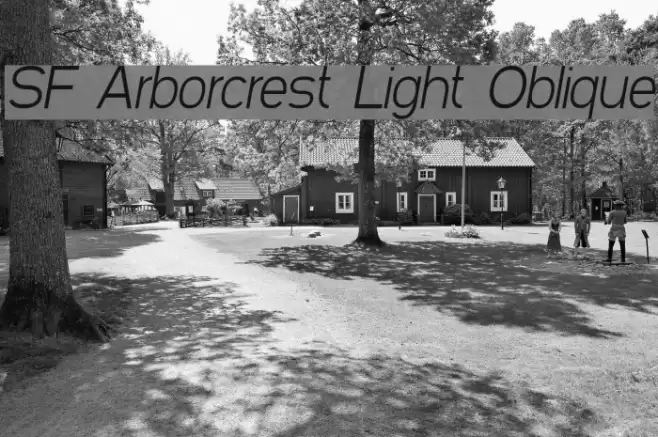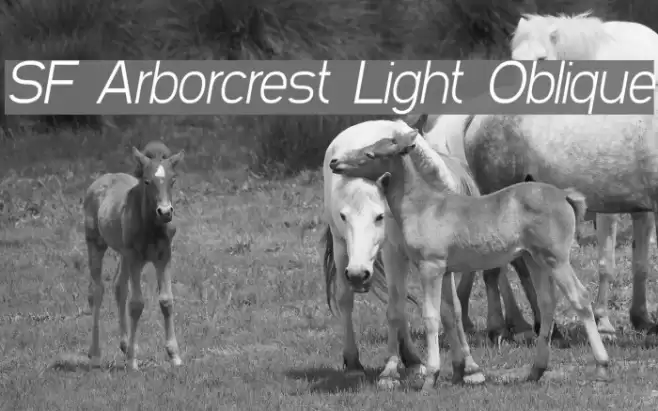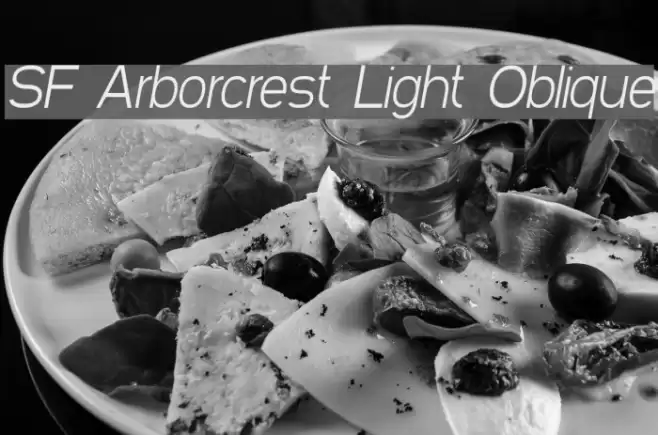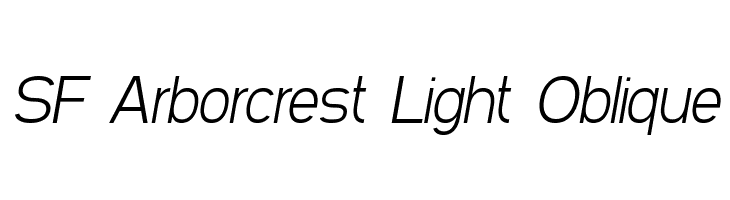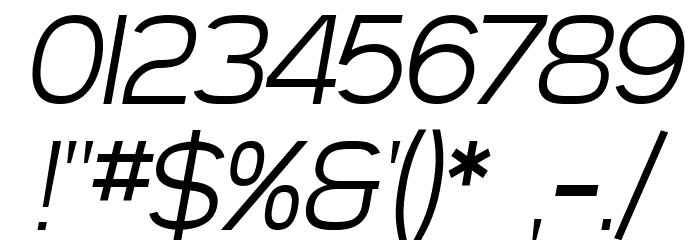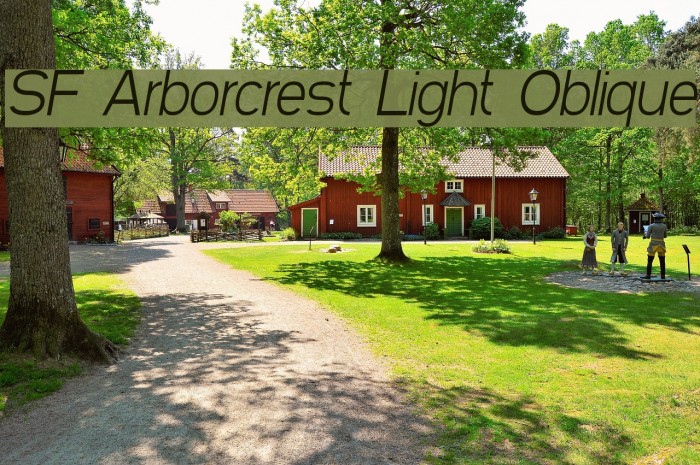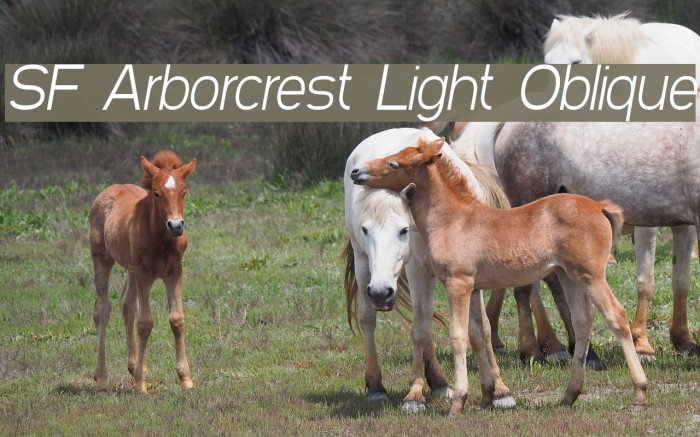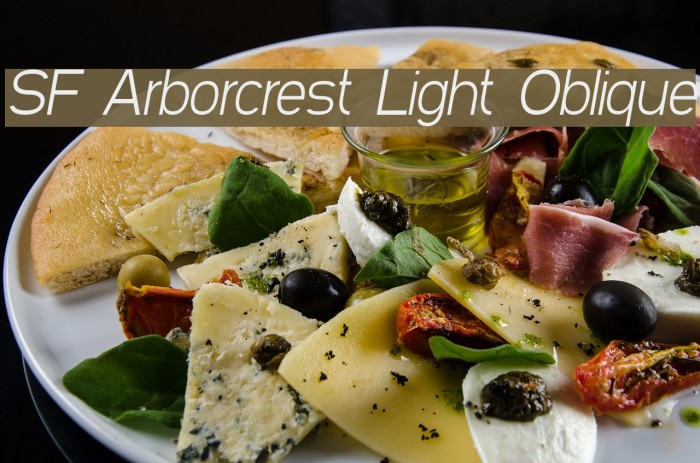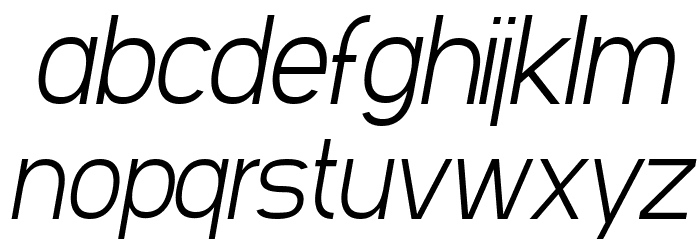
SF Arborcrest Light Oblique Font
SF Arborcrest Light Oblique Description
This font features a sleek and modern design with a light oblique style. The characters are slightly slanted, giving a dynamic and forward-moving appearance. The strokes are thin and consistent, providing a clean and elegant look. The font maintains a uniform width across all characters, ensuring readability and balance. Its design is minimalistic, making it suitable for contemporary projects that require a touch of sophistication. The spacing between characters is normal, allowing for easy legibility without appearing crowded.
A sleek, modern, and light oblique font with thin strokes and normal spacing from Sans Serif fonts.
- Proposed Projects: Ideal for modern branding, digital interfaces, and editorial design where a clean and sophisticated look is desired.